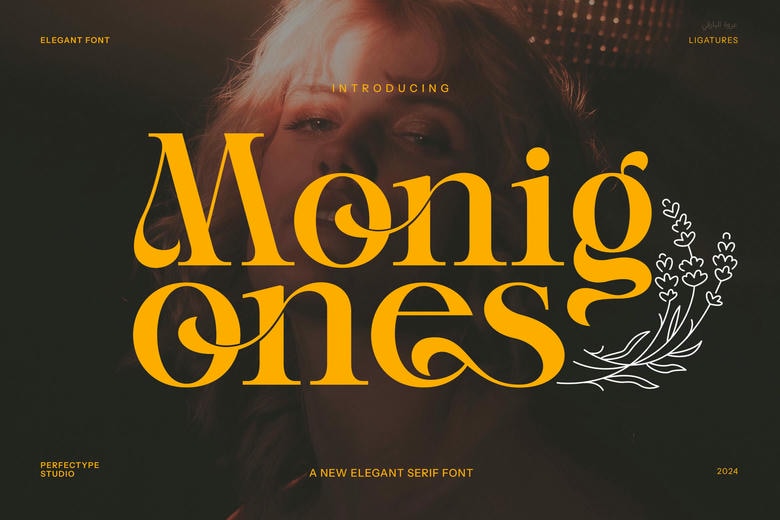
Monigk Ones Elegant Serif font is an excellent work of art that has allowed the character of a vintage font with the ease of the modern one. Monigk Ones features tempered appearance with original serifs and soft geometric shapes of the lettering, giving every design a classic and luxurious look. This font looks highly professional, and can be best used for projects that require both refinement and the reminder of the good old times.
Being optimal for logo designs, branding, as well as luxurious product use, Monigk Ones Elegant Serif adds exclusivity to any image. Regardless of whether you are working on a unique logo for a shop, on a stylish website, or on visually appealing advertisements, this font to the design simply says ‘Quality & Craftsmanship’. Its vintage style is perfect for different type of projects as for modern interior design as for retro interior design as well.
Monigk Ones also has great editorial design capabilities, which makes it ideal to use in the creating of magazine, brochures and product packaging. Because of the fine modulation of these diacritics, the typeface is easily readable whether employed for huge headlines or fine-text matter. Regardless of whether you are targeting fashion and apparel, food and beverage or lifestyle niche, this font will enhance your brand’s experience to the next level..
Because of the classic style with clear style, Monigk Ones Elegant Serif Font is ideal for designers who need to create an individual style. It is something different from the ordinary typeface that is common in most everyday products—it is craft and luxury for those who want an added appeal for their projects.
Monigk Ones Serif Font